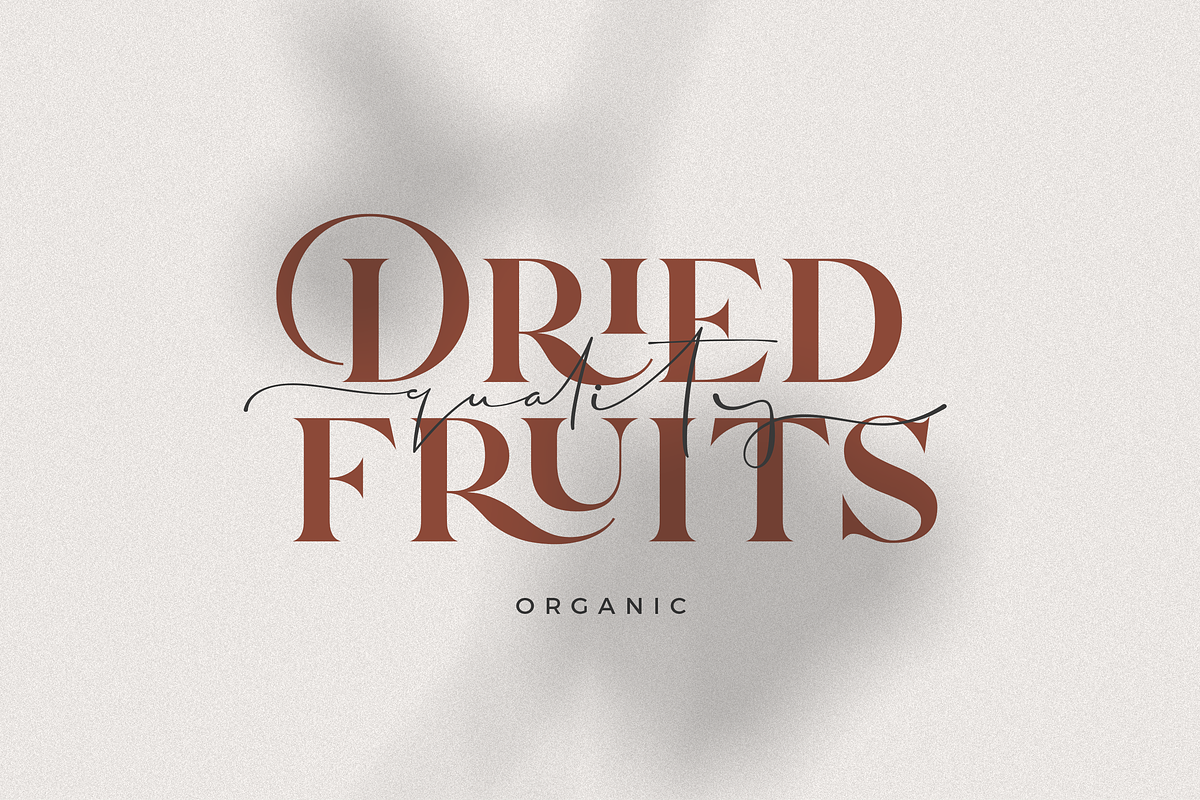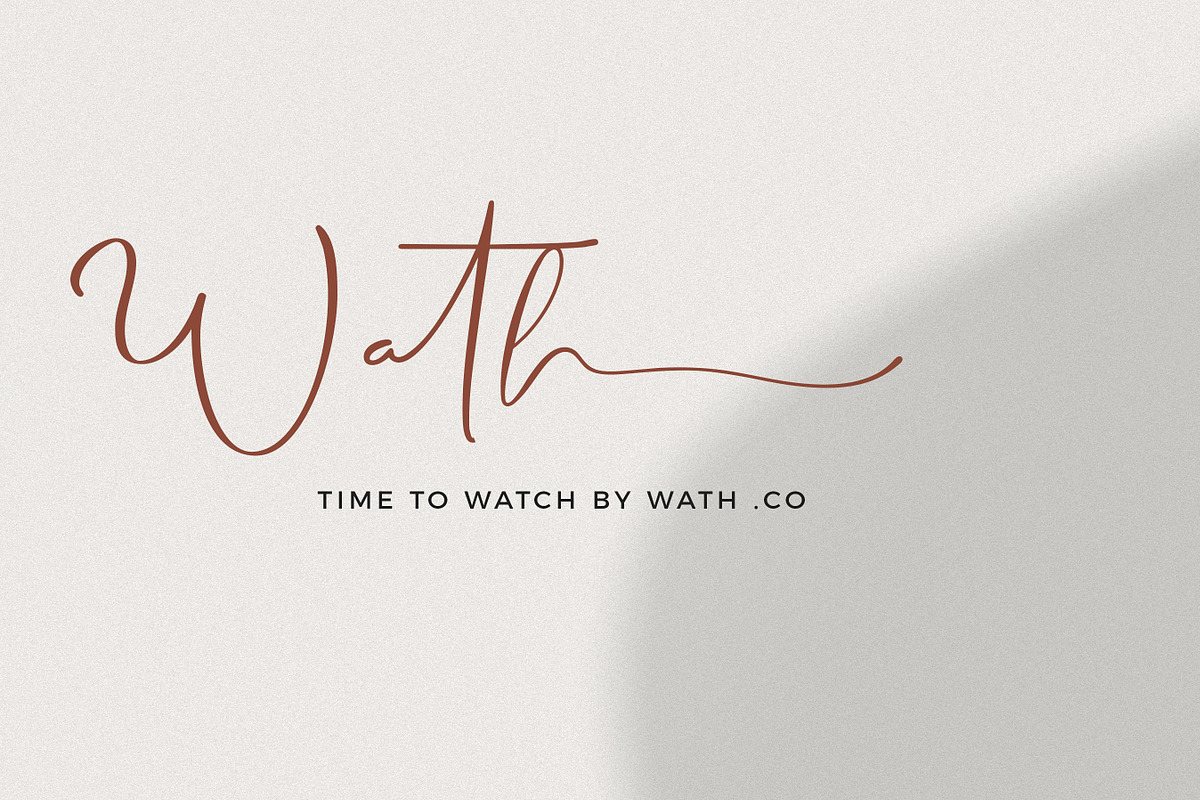
Hello Paris is modern serif family with luxury and elegant style consisting of a sophisticated signature-style script and an elegant, luxury all-caps serif font. Creates a perfect pairing contrast with combining Hello Paris Serif and Script font.
This family is designed to pair harmoniously, and lend themselves to high end branding, logo designs, product packaging & invitation designs. A modern and elegant hand-drawn script font containing upper & lowercase characters, all punctuation and numerals. Also contains over 50+ ligatures and 50+ alternates characters to help the text flow naturally and add a custom-made feel.